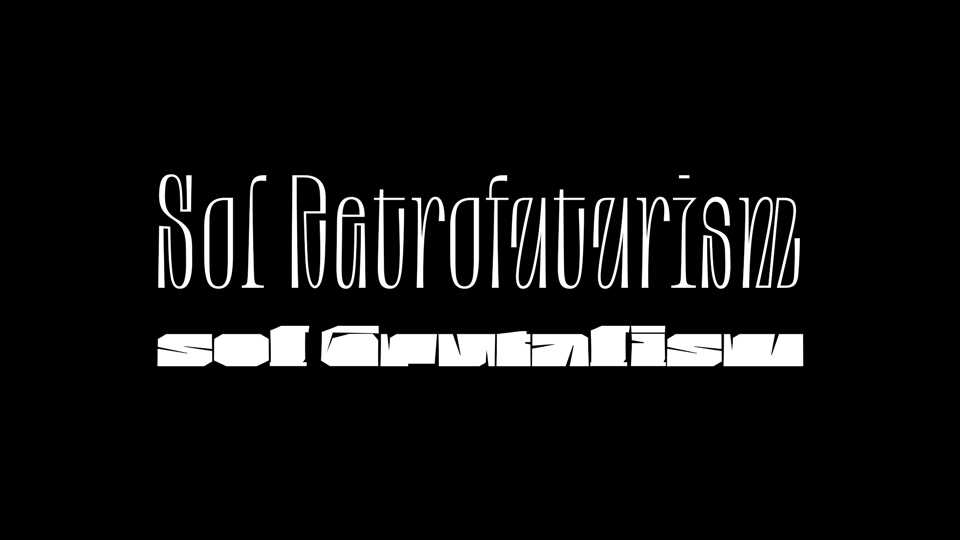
Download Sol font, a variable typeface based on two prevalent outlooks on the distant future that Stanisław Lem might have lived in between of: first—a more optimistic outlook in Western retrofuturism and second—a more philosophical and pessimistic outlook in the Eastern Bloc.